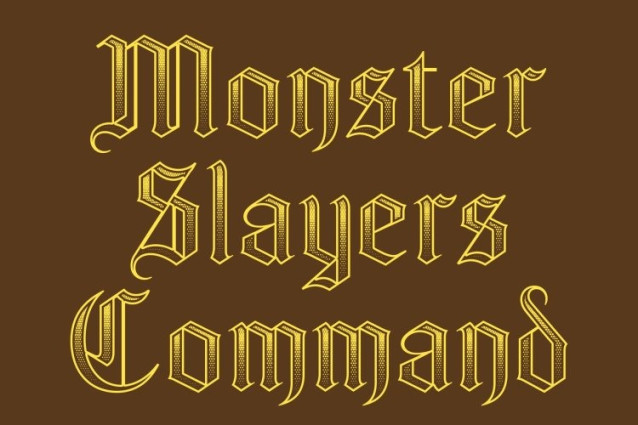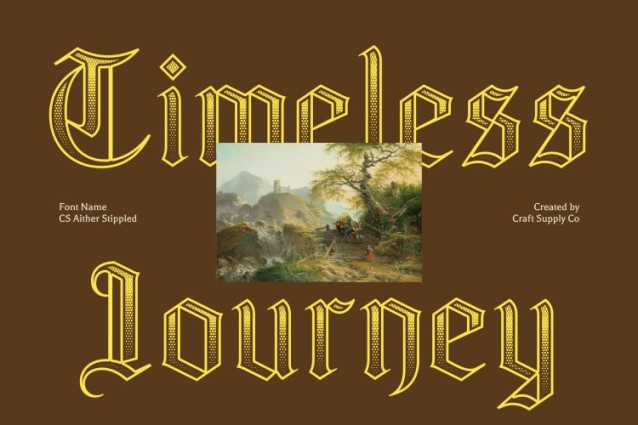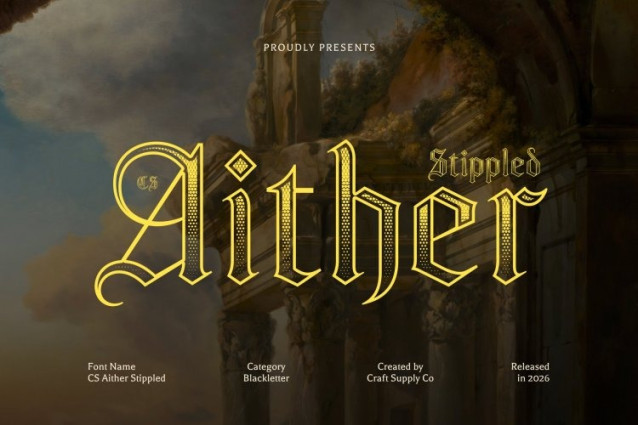
CS Aither Stippled Font
CS Aither Stippled Font This is a distinguished display font crafted in the iconic Blackletter style often known as Gothic or Old English now enriched with a dense stippled texture. Inspired by traditional ink-dot and stippling illustration techniques, the dotwork detailing adds artistic depth and a handcrafted vintage character to its bold, historic forms. The result is a dramatic typeface that feels both authentically traditional and visually refined.
Ornate Details with Textured Authority
Featuring sharp angles, elaborate serifs, and sweeping ornamental strokes, commands attention with confidence. The stippled surface enhances its intricate structure, adding richness and dimension without compromising clarity. This combination of bold construction and textured nuance conveys authority, sophistication, and timeless grandeur.
Powerful Presence with Heritage Appeal
The commanding weight and distinctive Gothic character ensure strong visual impact across any composition. The stippled detailing reinforces its antique, engraved aesthetic evoking the look of historical manuscripts, classic engravings, and ceremonial typography. It creates an atmosphere of mystique, legacy, and artistic craftsmanship.
Versatile for Formal and Themed Designs
This font excels in formal invitations, medieval-themed event posters, luxury branding, editorial headlines, and artistic materials that require a touch of heritage. Whether for weddings, exhibitions, historical projects, or dramatic branding, this font delivers elegance, depth, and a memorable statement rooted in tradition yet enhanced with artistic texture.